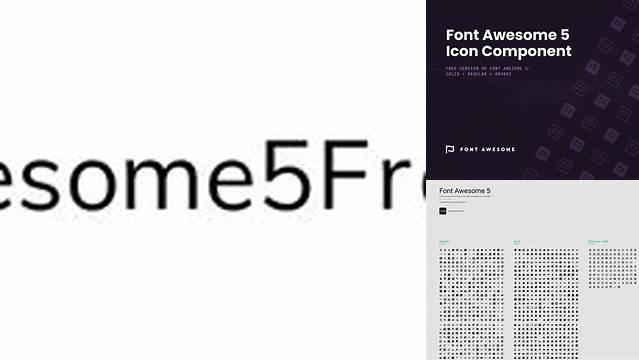
Hey guys, are you looking to spice up your website or design projects with some awesome icons? Well, you're in luck! Today, we're diving into the world of Font Awesome 5 Pro Regular and, most importantly, how you might be able to snag a free download. Let's face it, who doesn't love a good deal, especially when it comes to design resources? This article will break down everything you need to know, from what Font Awesome 5 Pro Regular actually is, to where you might find a free download (hint, hint!), and how to use these amazing icons to elevate your work. So, grab your coffee, settle in, and let's get started on this icon-filled adventure. I'll try to make it easy for you to follow.
H2: What is Font Awesome 5 Pro Regular, Anyway?
Alright, let's get down to the basics. Font Awesome 5 Pro Regular is a fantastic collection of scalable vector icons that you can use in your web design, graphic design, and pretty much any other creative project you can think of. Think of it as a huge library of cool symbols and images that you can easily integrate into your work. The "Regular" part of the name refers to the icon style - it's the standard, "everyday" look. The "Pro" version, which we're interested in today, gives you access to a wider variety of icons compared to the free version, as well as a few extra features like more customization options and better support. You get a lot more options! With Font Awesome 5 Pro Regular, you're not just getting static images; you're getting scalable vector graphics. This means that no matter how big or small you make your icons, they'll always look crisp and clear. That's super important for things like responsive web design, where your icons need to look good on any screen size. The library is constantly updated with new icons to keep up with the times, ensuring you have access to the latest trends and design styles. The icons cover a huge range of categories, from social media and business to user interface elements and everything in between. You can easily find an icon to represent almost anything you need. The icons are designed with clean lines and a consistent style, which makes your projects look professional and polished. And hey, who doesn't want their work to look professional? In essence, Font Awesome 5 Pro Regular is a designer's best friend, a treasure trove of versatile icons that can transform your projects from good to amazing. Get it, good?
H2: Why Choose Font Awesome 5 Pro Regular?
Why bother with Font Awesome 5 Pro Regular, you ask? Well, let me tell you, there are several good reasons. First off, using icons is a great way to make your website or design more visually appealing and engaging. Instead of using boring old text, you can use icons to represent key information, making it easier for your audience to quickly understand what you're trying to convey. This can lead to increased user engagement and a better overall user experience. Think about how much easier it is to recognize a "download" icon than to read the word "download." It's instant recognition! Second, Font Awesome 5 Pro Regular offers a massive selection of icons, covering a huge variety of categories. Whatever you're working on, you're likely to find an icon that fits your needs. This saves you time and effort, as you don't have to create your own icons from scratch. Third, these icons are easily scalable, meaning they look great at any size. This is incredibly important for responsive design. You can use the same icon on a desktop, tablet, and mobile device without worrying about it looking pixelated or blurry. Next, Font Awesome 5 Pro Regular is super easy to integrate into your projects. They provide clear documentation and various methods to use the icons, making it easy for both beginners and experienced designers to get started. The library is constantly updated with new icons and features, meaning you'll always have access to the latest design trends. So, whether you're a web designer, graphic designer, or just someone who wants to make their projects look more professional, Font Awesome 5 Pro Regular is an excellent choice. I hope this makes sense!
H3: Superior Scalability
One of the biggest advantages of Font Awesome 5 Pro Regular is its superior scalability. Because the icons are vector-based, they can be resized without any loss of quality. This is a HUGE deal in the world of web design and graphic design. Imagine you're building a website, and you need to display an icon for a social media link. You want that icon to look sharp and clean on a desktop computer, a tablet, and a smartphone. If you were using a raster-based image (like a JPEG or PNG), the icon would likely become blurry or pixelated when resized for different screen sizes. That just looks bad, right? But with Font Awesome 5 Pro Regular, you can resize the icon as much as you like, and it will always look perfect. This is because vector graphics are defined by mathematical equations, not pixels. The image is essentially redrawn at any size, guaranteeing that it looks crisp and clear, regardless of the display. This level of scalability is essential for creating a responsive design that works well on any device. In a world where people access websites and content from a wide variety of devices, it's critical that your design elements look good no matter what. That's why Font Awesome 5 Pro Regular's scalability is a huge selling point for designers.
H3: Vast Icon Library
The sheer size and variety of the icon library is a major selling point for Font Awesome 5 Pro Regular. The library is absolutely massive, with thousands of icons covering a huge range of categories. From social media icons and business symbols to user interface elements and more abstract designs, you're almost guaranteed to find an icon that meets your needs. This extensive selection saves you a ton of time and effort. Instead of spending hours designing your own icons from scratch, you can simply browse the Font Awesome 5 Pro Regular library and find what you're looking for. The variety is particularly valuable because it allows designers to create more versatile and engaging designs. You can choose icons that perfectly match the style and tone of your project, and make it easier to convey your message to your audience. The library is constantly updated with new icons. This ensures that you always have access to the latest design trends and styles. The icons are designed with a consistent style and high quality. This leads to a professional and polished look for your projects. Whether you're creating a website, a presentation, or any other type of design project, the vast icon library of Font Awesome 5 Pro Regular is a huge asset, giving you a wide range of choices and making your work easier and more efficient.
H3: Leveraging the Free Version
Even though we're talking about getting the "Pro" version, let's not forget about the power of the Font Awesome 5 free version. It's a really solid option in its own right, and it's a great starting point for anyone looking to use awesome icons in their projects. The free version comes with a huge selection of icons across various categories. Although it may not have the full range of the "Pro" version, you'll still find a ton of useful icons that can be used for many different types of projects. From basic interface elements to social media icons, the free version has you covered. It's also super easy to use. Font Awesome provides clear documentation on how to integrate the icons into your website or design. You can get started quickly, even if you're a beginner. The free version is an excellent way to test out the Font Awesome system and see if it's the right fit for you before committing to the "Pro" version. You can get familiar with the way the icons work and how to customize them. And let's not forget, the free version is 100% legal and ethical to use. It's supported by the Font Awesome team, so you can feel good about using it. You can use the free version for both personal and commercial projects. That means you can use the icons on your website, in your presentations, or for your client work without any worries. Consider using the free version as a stepping stone. It's a gateway to the world of awesome icons, and it can lead you to discover the value of the "Pro" version.
H3: Checking for Official Promotions and Discounts
Another legit way to potentially get access to Font Awesome 5 Pro Regular for a lower price is to keep an eye out for official promotions and discounts. These offers are released by the Font Awesome team. They're a great way to get your hands on "Pro" features without paying the full price. The team often runs promotions during holidays or special events. These are the times when you can get access to the "Pro" version at a discounted rate. You should subscribe to their email list and follow their social media channels. This way, you'll get notified about any upcoming sales, promotions, or special offers. Sometimes, Font Awesome partners with other design platforms or services. These partnerships could result in bundle deals where you get access to Font Awesome Pro along with other tools or resources at a reduced price. Keep an eye on these types of collaborations! You can also watch out for limited-time free trials. These trials provide you with access to the "Pro" features for a set period. This is a great way to test out the features and see if the "Pro" version is right for you. By actively looking for official promotions and discounts, you'll be more likely to get access to Font Awesome 5 Pro Regular at a reduced price. It's a smart way to save money and still have access to the amazing icons and features.
H2: How to Use Font Awesome 5 Pro Regular (If You Get It!)
So, let's say you've managed to get your hands on Font Awesome 5 Pro Regular (legally, of course!). Now what? Integrating these icons into your project is a breeze, and there are several ways to do it. The most common method is to use the Font Awesome CDN (Content Delivery Network). This involves adding a simple line of code to the <head> section of your HTML. The CDN allows you to quickly load the Font Awesome icons from their servers. This means you don't have to download any files. Alternatively, you can download the icon files and host them on your own server. This gives you more control over the files and can sometimes improve loading speeds, especially for users in specific geographical locations. To use the icons, you'll typically add specific HTML code to your website. You'll use <i> tags or <span> tags, along with CSS classes that identify the icon you want to display. This is all covered in the Font Awesome documentation, which is very helpful. You can also customize the icons using CSS. You can change their size, color, and even add animations. This allows you to match the icons to your brand and the overall design of your website. Font Awesome also supports JavaScript, which allows you to dynamically add and manipulate icons on your website. This is useful for creating interactive elements or for adding icons based on user actions. Regardless of the method you choose, using Font Awesome 5 Pro Regular is generally a smooth and easy process. They've made it simple for designers of all levels to get up and running with their awesome icon set. Remember to consult the official Font Awesome documentation for detailed instructions and best practices. You should find it super helpful.
H3: Using the CDN for Quick Integration
H3: Exploring Online Communities and Forums
Beyond the official website and documentation, you can find a wealth of information and support within online communities and forums dedicated to Font Awesome. These online spaces are great places to connect with other designers, ask questions, share your work, and get inspired. Forums are a popular option. Many online forums are dedicated to web design, graphic design, and front-end development. They often have dedicated sections for Font Awesome, where users can share their experiences, ask for help, and discuss best practices. There are also social media groups. Platforms such as Facebook and Reddit have groups dedicated to Font Awesome. These groups provide a more casual environment for sharing tips, asking questions, and getting feedback. You can also find communities on platforms like Stack Overflow. These are great for finding answers to technical questions and for troubleshooting problems. When you participate in these communities, be sure to follow the guidelines of each platform and to be respectful of other users. Ask clear and specific questions. Provide enough information for others to understand your problem or need for help. Share your own knowledge and experience. Your contributions help to create a thriving and supportive community. You can also learn from the experiences of others. By reading posts and discussions, you can learn about new features, tricks, and best practices. You can also discover creative ways to use Font Awesome. Participating in online communities and forums can be a great way to improve your design skills, stay up-to-date on the latest trends, and connect with other designers. This can inspire you and help you troubleshoot challenges.